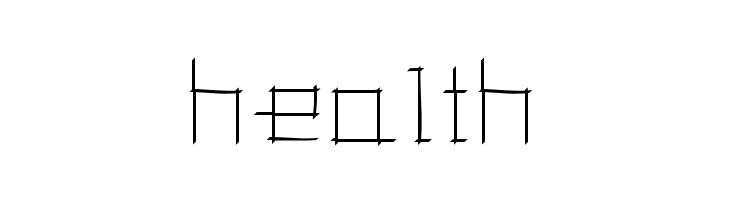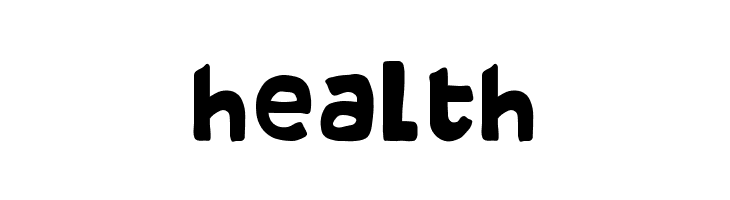
A bold, modern sans-serif font with excellent legibility and a professional appearance.
A playful, hand-drawn font with a casual and whimsical style.
A sleek, modern font with clean lines and slightly condensed letterforms.
Bold, textured font with diagonal stripes for a modern, industrial look.